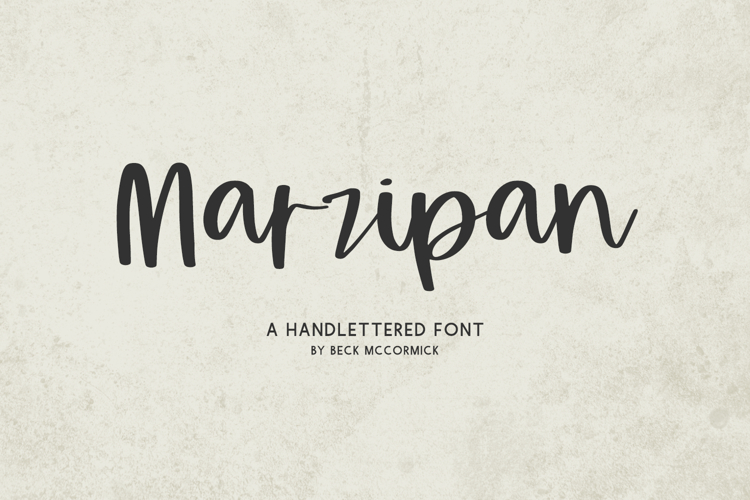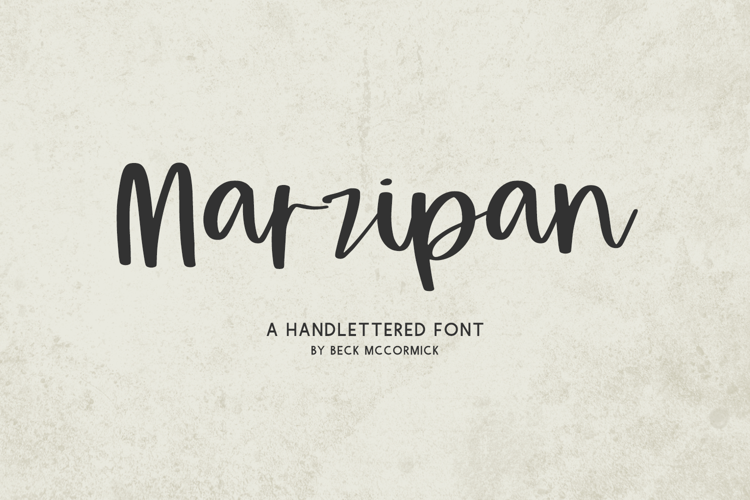
Marzipan Script is best for:
- modern farmhouse decor and crafts
- website design + website accents, blog design
- feminine graphic tee shirt design & other apparel
- Christmas projects like cards & gift tags